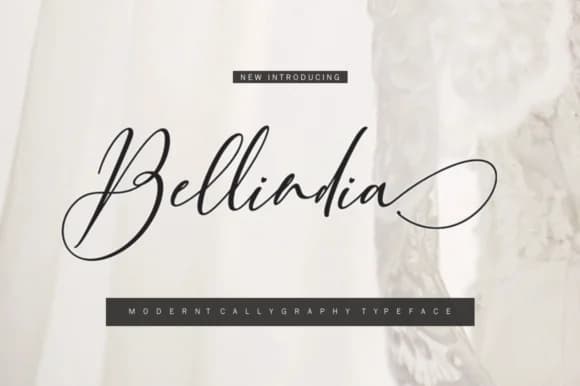
Bellindia by mightype89 is a contemporary calligraphy typeface with an organic, hand-drawn aesthetic that brings fluid elegance to any layout. The flowing letterforms deliver the sophistication of traditional penmanship paired with modern versatility, making it ideal for designers seeking a refined alternative to geometric scripts. This style works beautifully for creating distinctive wedding stationery, elegant product labels for artisan beauty and craft brands, custom greeting card designs, and impactful social media graphics. Whether you're developing boutique branding materials, designing personalized correspondence, or producing display posters and signage, Bellindia brings intentional sophistication without appearing overly ornate or difficult to read.
The font includes an extensive character set with multiple glyph variations and alternate letterforms, enabling you to create authentic customization within a single design file. This flexibility means you can achieve natural-looking handwritten text that shifts and varies throughout your project, avoiding the predictable repetition that sometimes limits digital scripts. Designers particularly appreciate the range of options for personalizing layouts, whether you're building comprehensive brand systems or individual creative pieces. The versatility extends seamlessly across digital applications and printed materials alike.
Bellindia Font is a script font that shines as a display or heading face. Pair it with a clean sans-serif or serif font for body text β the contrast creates a clear hierarchy while the two styles stay balanced and easy to read.
Bellindia Font